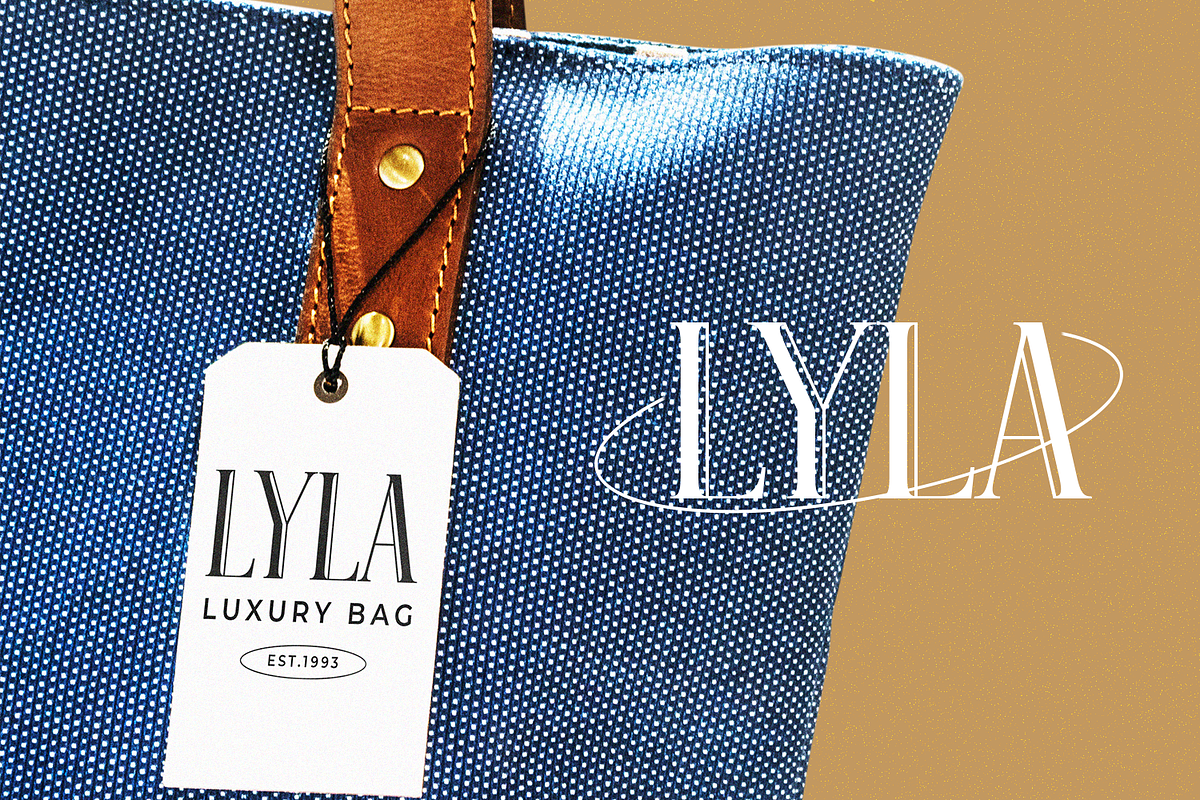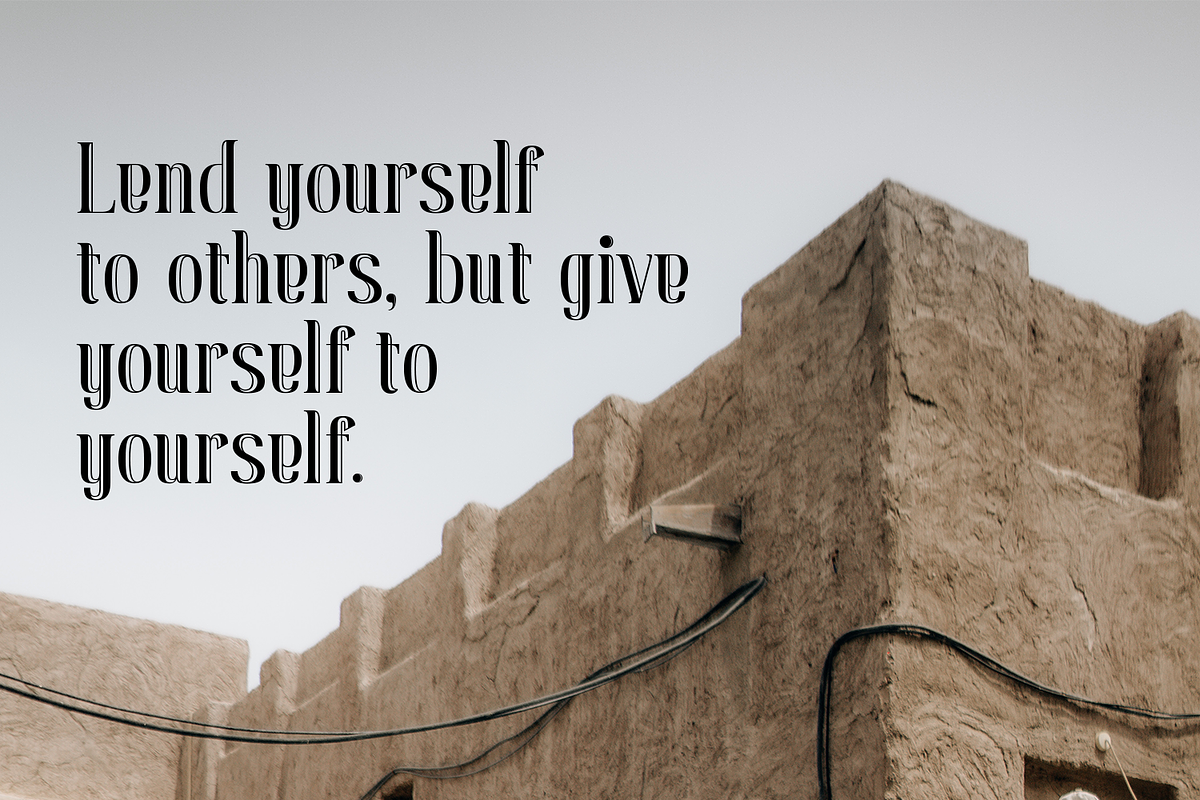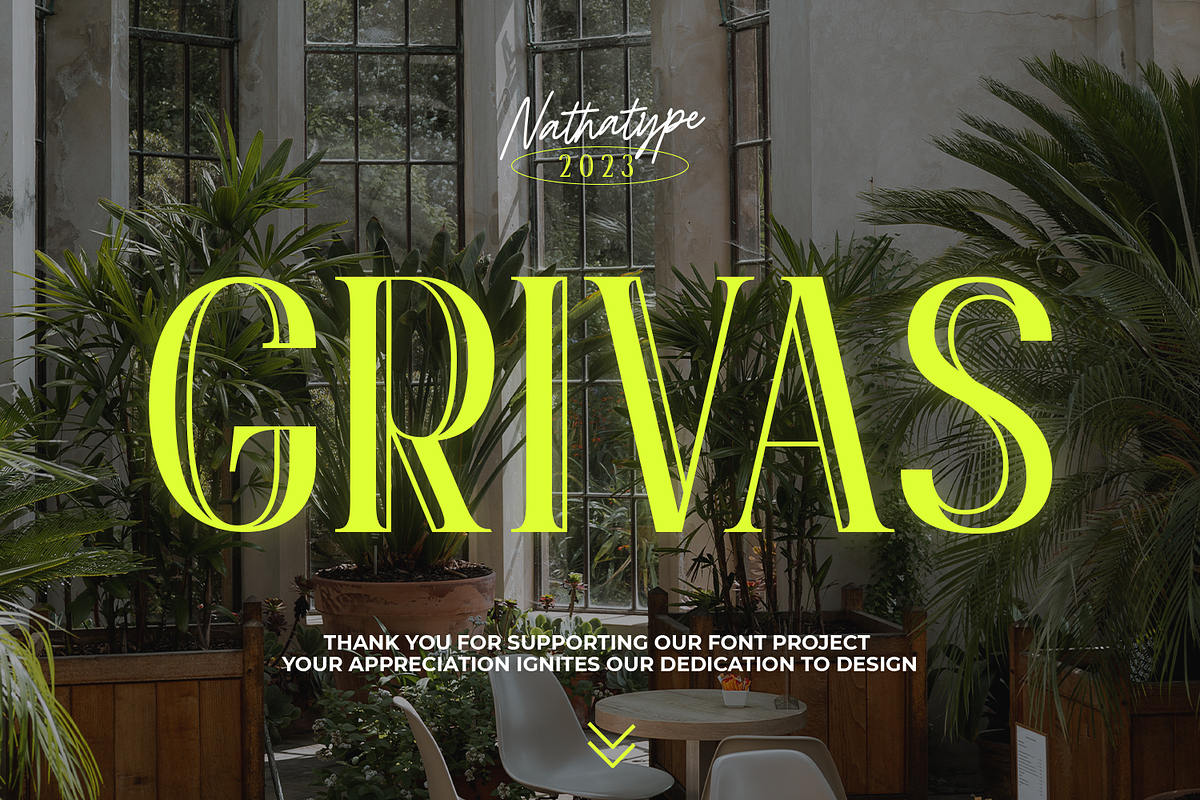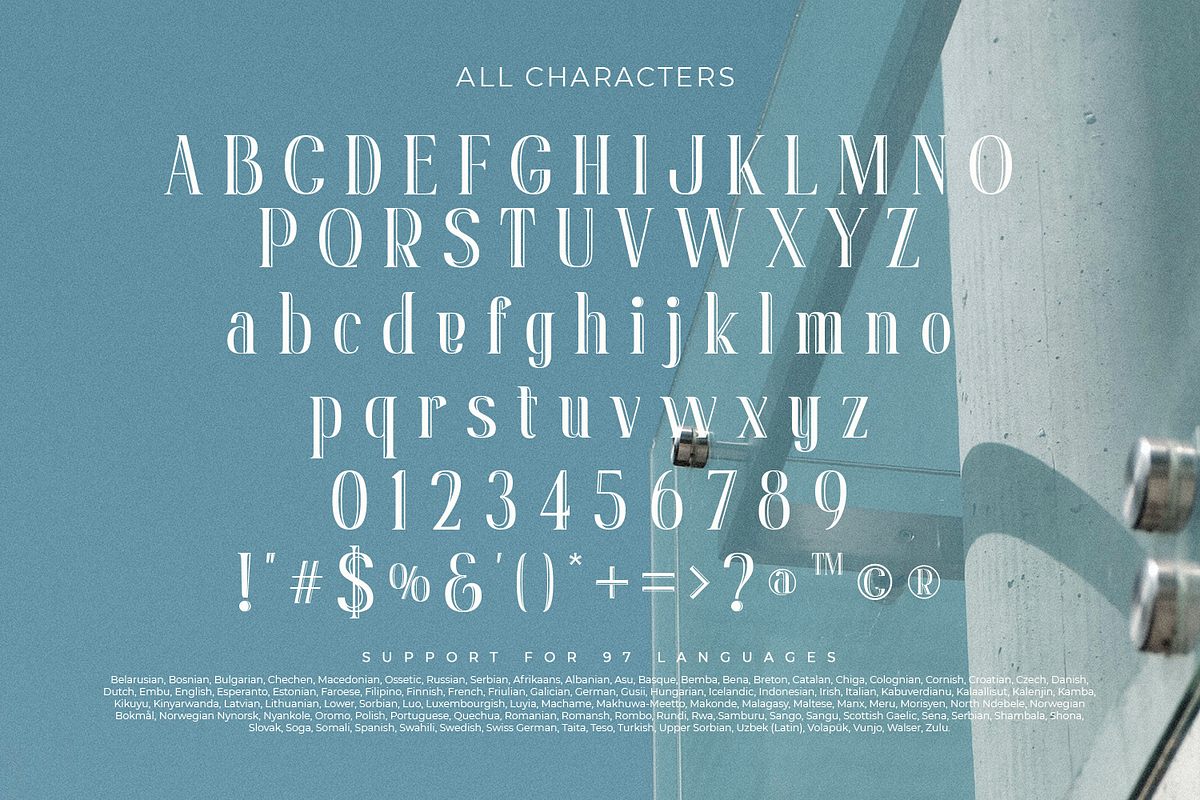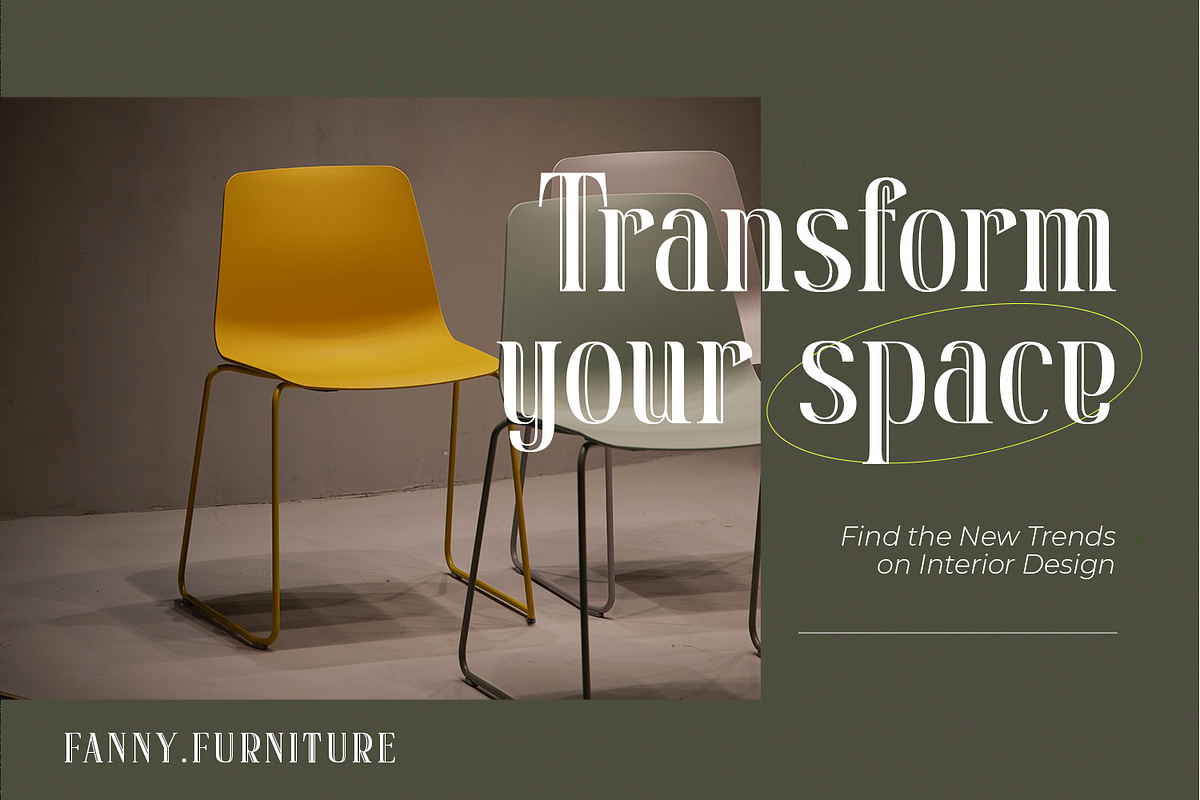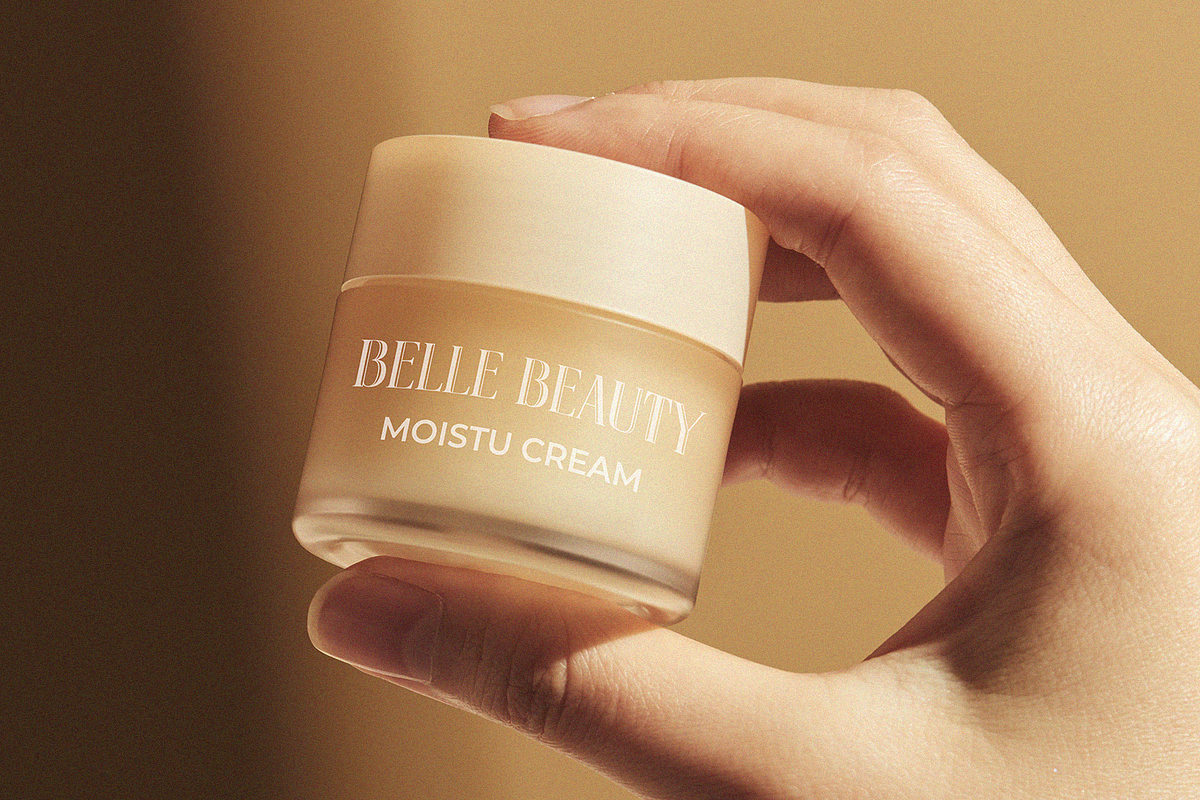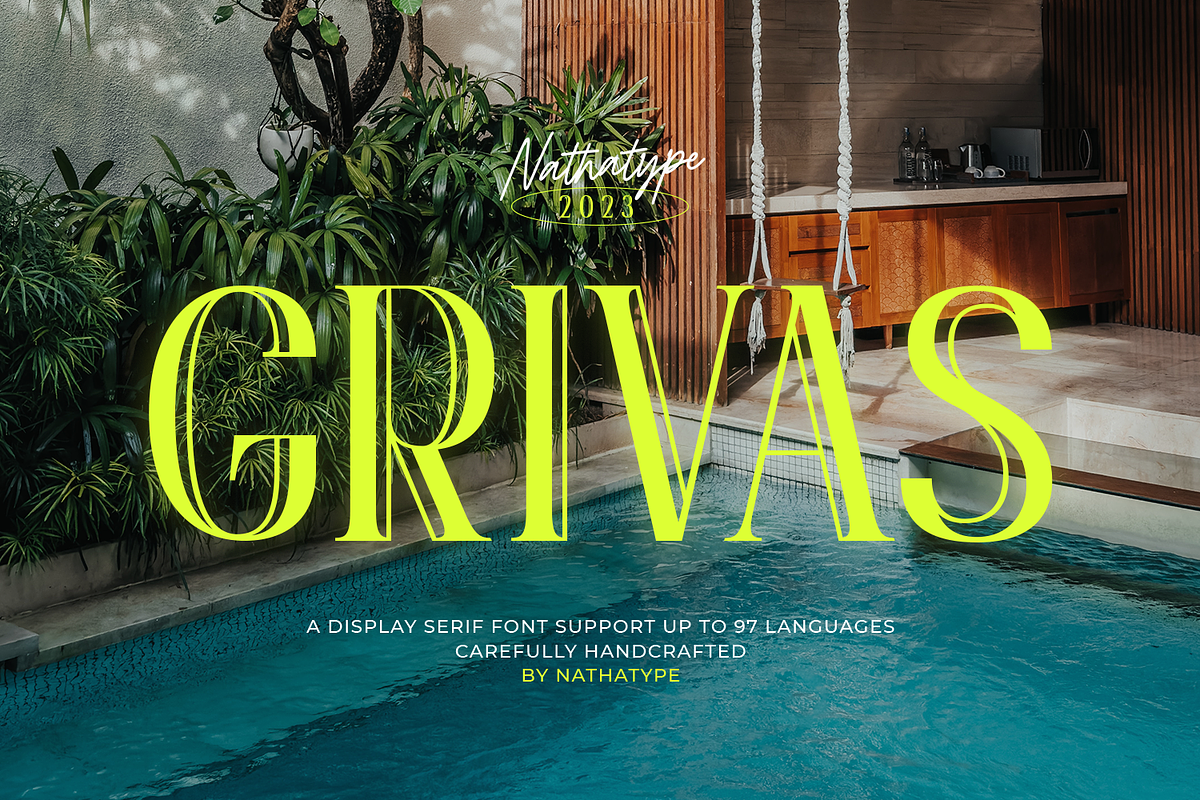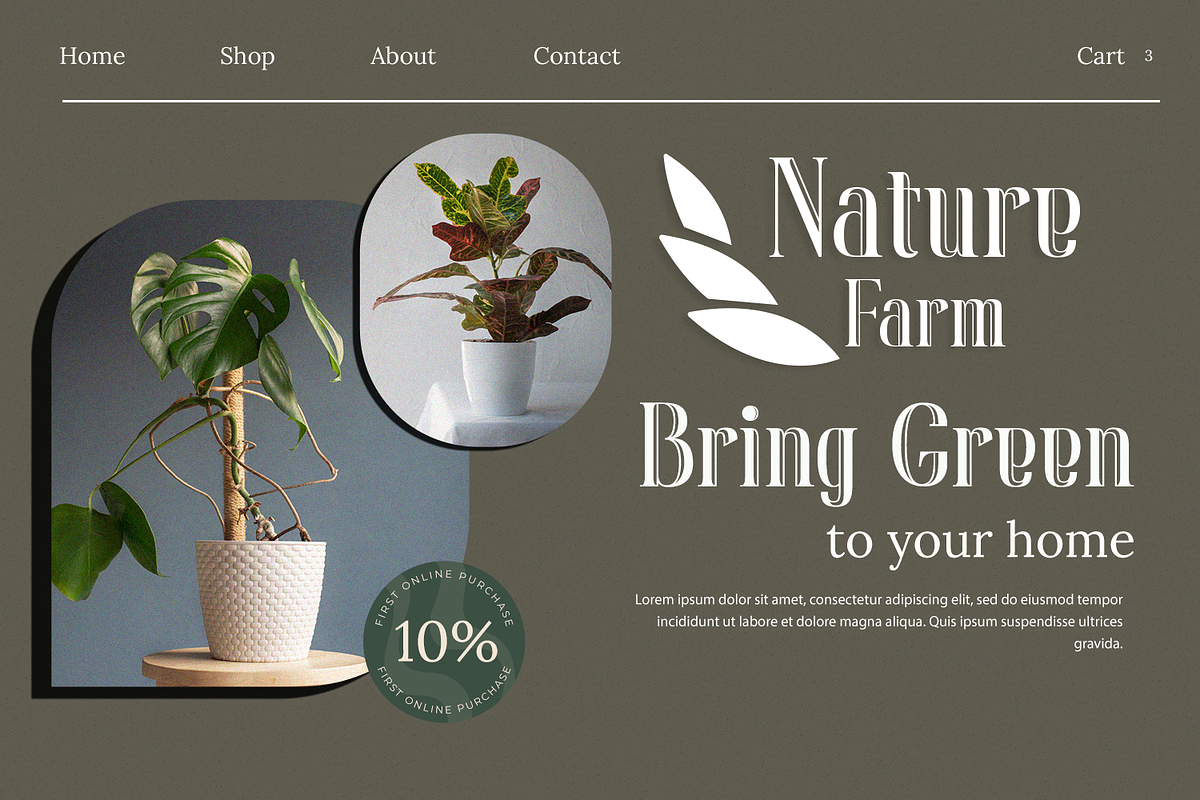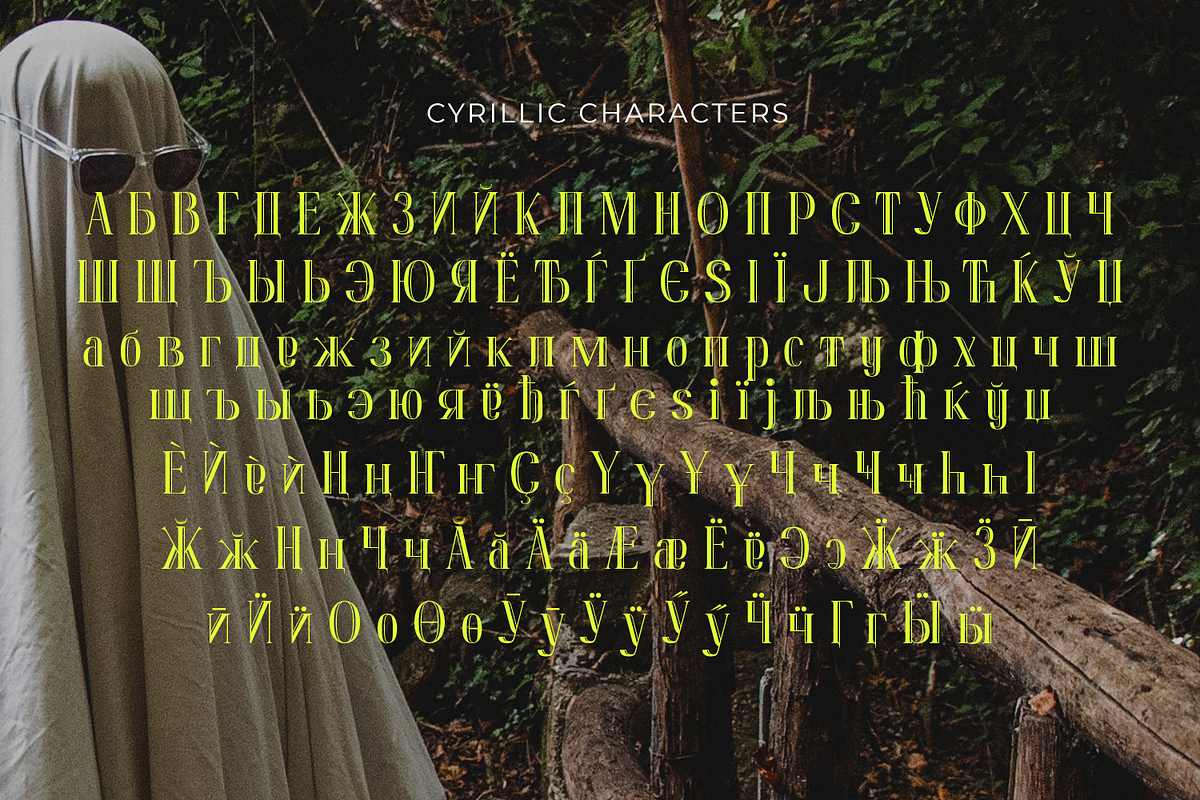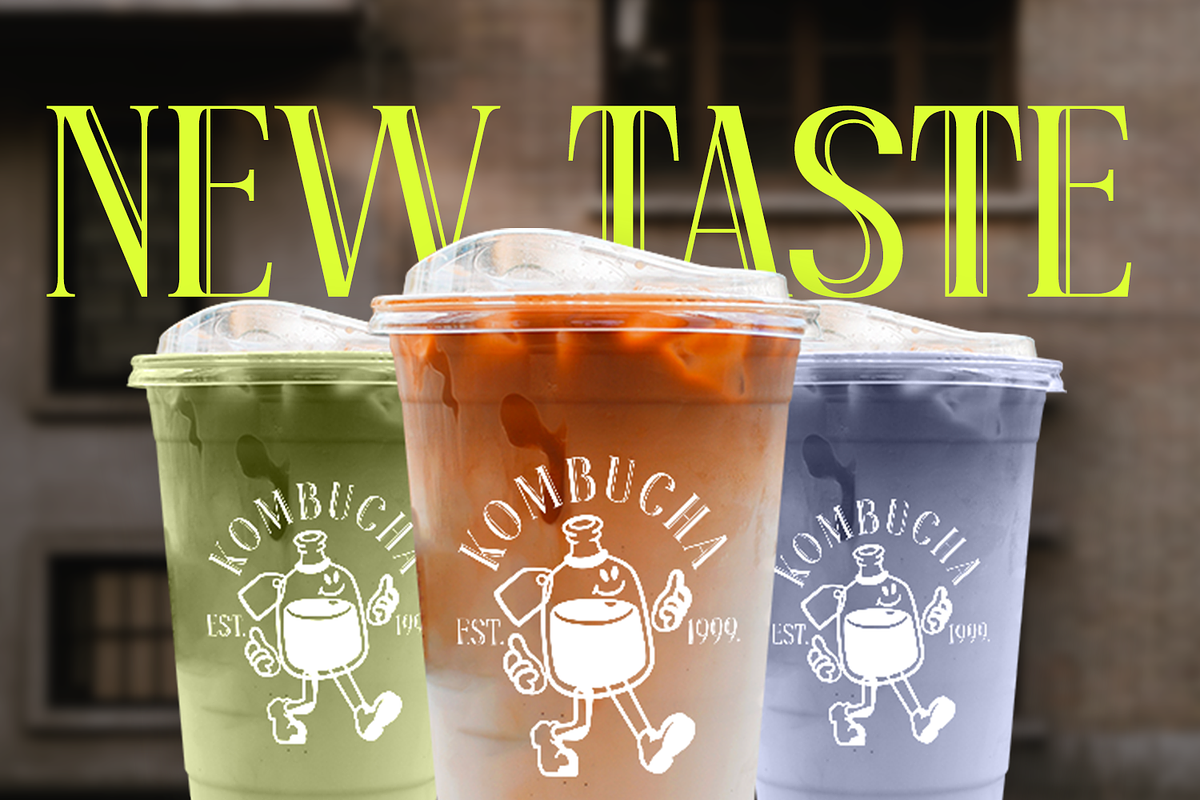
Grivas
Prepare to be entranced by the unparalleled allure of Grivas, a serif display font that redefines typographic elegance with its distinctive dual-contrast design. Each letter of Grivas is a work of art, meticulously crafted with two distinct outlines that harmoniously coexist. This innovative approach to contrast breathes new life into serif typography, where the interplay of thick and thin lines creates an exquisite visual rhythm that dances across the page. One outline boasts a refined delicacy, evoking a sense of timeless sophistication, while the other exhibits bold strokes that command attention and add a modern twist. For the best legibility use this font in the bigger text sizes. Enjoy the features here.
Grivas fits in headlines, logos, posters, flyers, branding materials, print media, editorial layouts, and many more. Find out more ways to use this font by taking a look at the font preview.